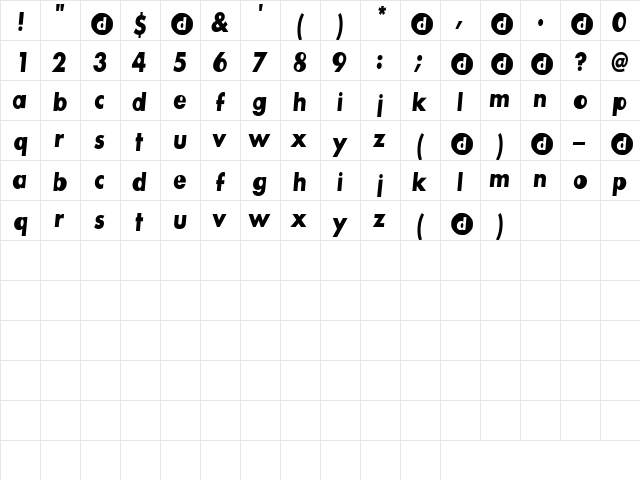
Sugaree Regular
Design Context for Sugaree Typeface
Sugaree takes a measured approach to typography — its balanced proportions and neutral character make it a reliable workhorse for both digital and print work.